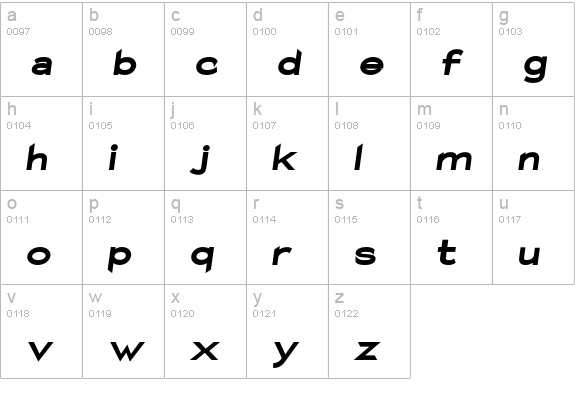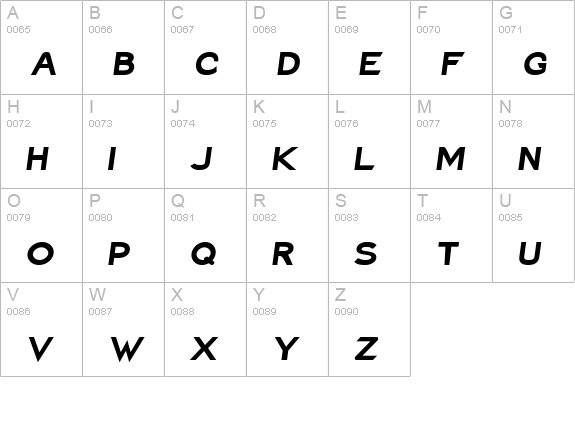
Charger Hemi R/T Font Details
The Charger Hemi R/T font is a bold and powerful typeface that exudes the same energy and intensity as its namesake, the iconic Charger Hemi R/T muscle car. With its strong and angular letterforms, this font captures the essence of speed, strength, and performance. The Charger Hemi R/T font is perfect for projects that demand attention and make a bold statement. Whether you're designing a logo for an automotive company, creating eye-catching headlines, or crafting a poster for a high-octane event, this font will command attention and leave a lasting impression. What sets the Charger Hemi R/T font apart is that it is not only visually striking but also freely available to download at FontsMarket.com. This means that you can easily access this incredible font without any cost, making it a valuable asset for designers, enthusiasts, and anyone looking to add a touch of automotive-inspired style to their projects. With its sleek and aggressive design, the Charger Hemi R/T font embodies the spirit of the legendary muscle car, and now you can harness that same power in your designs. Download the Charger Hemi R/T font today from FontsMarket.com and unleash its bold and captivating presence in your creative endeavors.